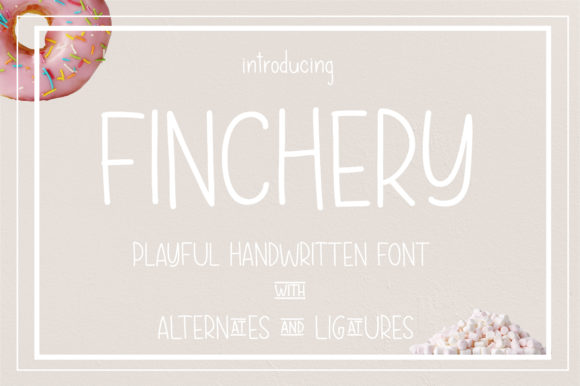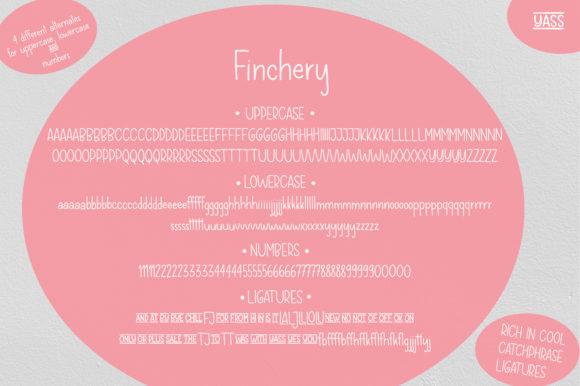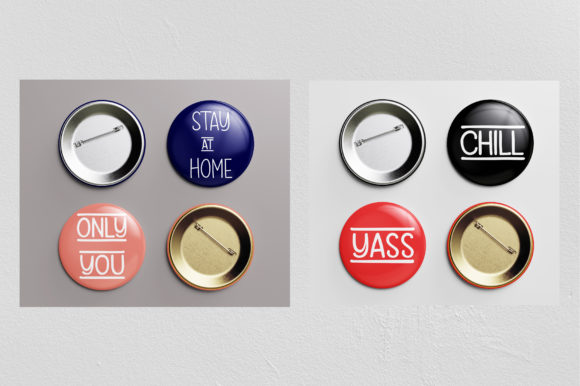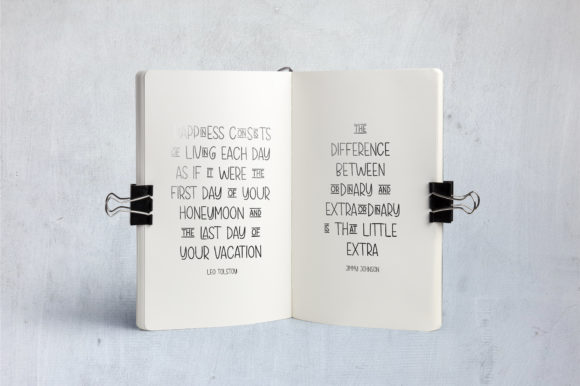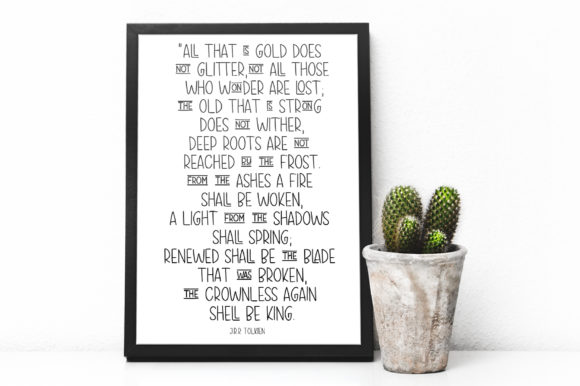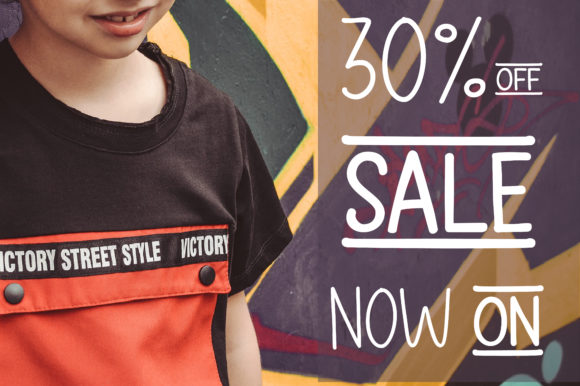
Finchery Font
About Finchery Font
Finchery is a playful handwritten font. Whether you’re looking for fonts for Instagram or calligraphy scripts for DIY projects, this font will turn any creative idea into a true piece of art!